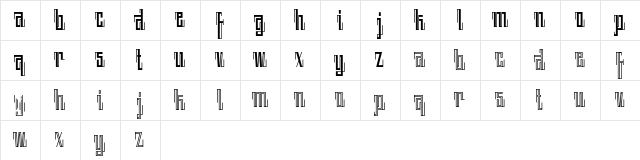
BACK TO ANCIENT TIME Regular Font Preview
BACK TO ANCIENT TIME Regular
BACK TO ANCIENT TIME Regular Font Details
| Foundry | 7NTypes |
| Designer | Situjuh Nazara |
Design Context for BACK TO ANCIENT TIME Typeface
BACK TO ANCIENT TIME is a composed and adaptable typeface that performs quietly and consistently across a wide range of design contexts.